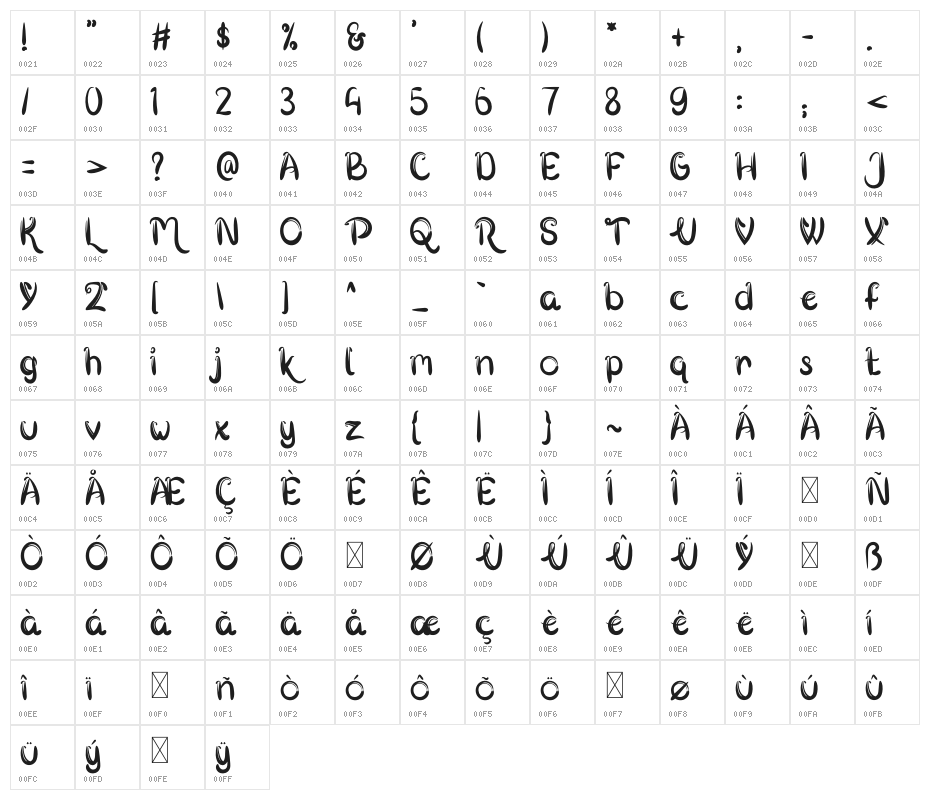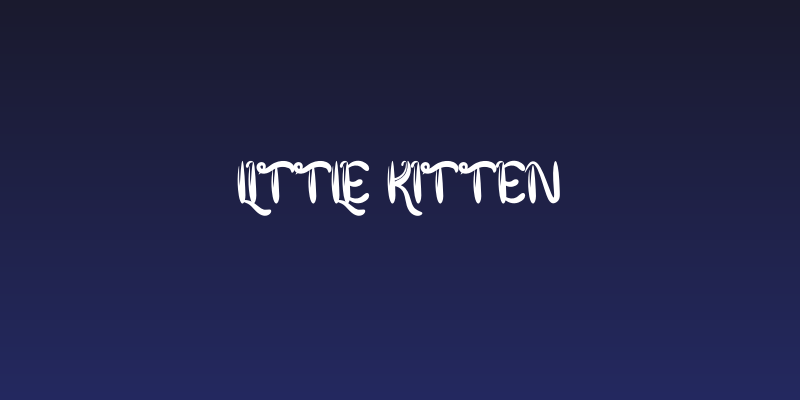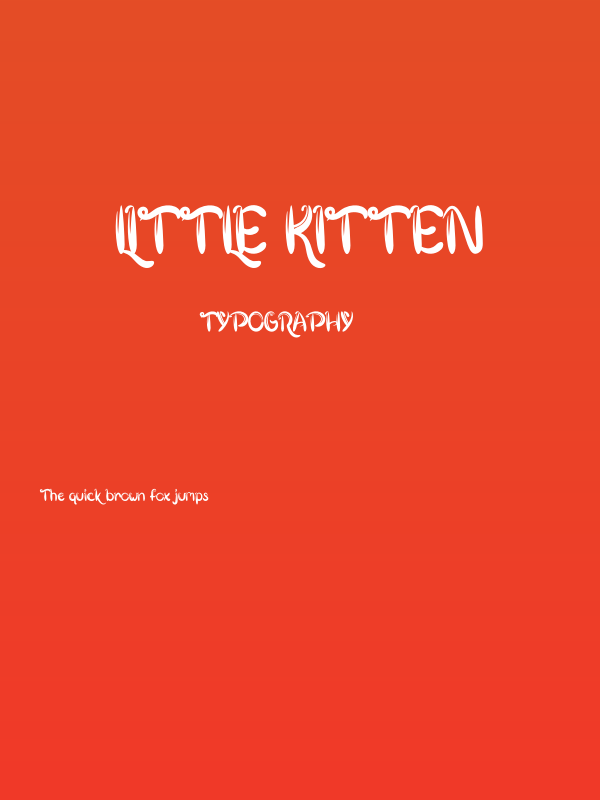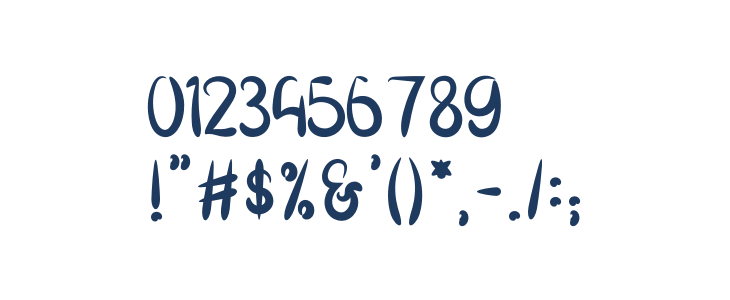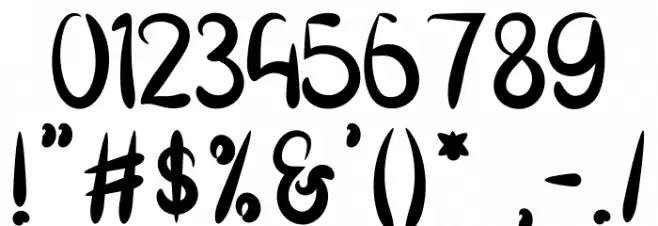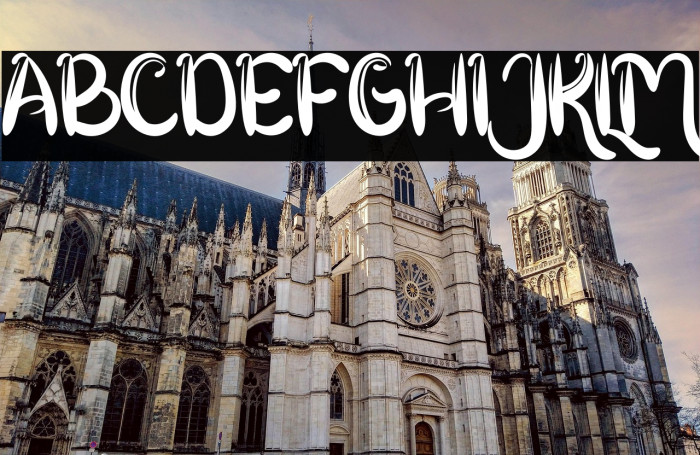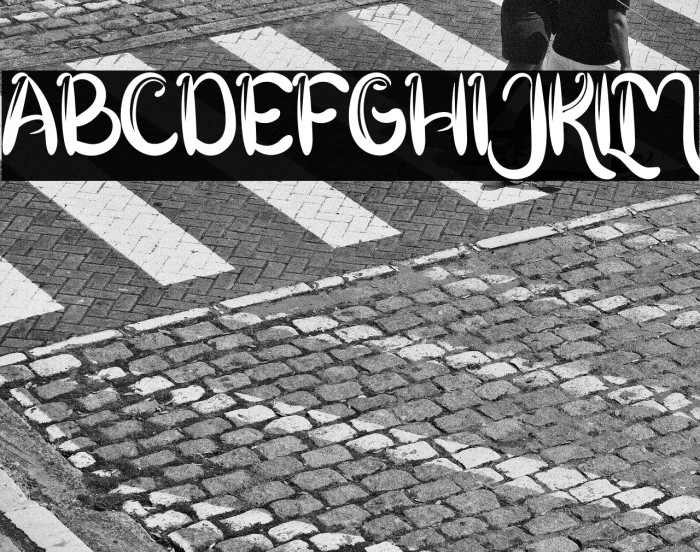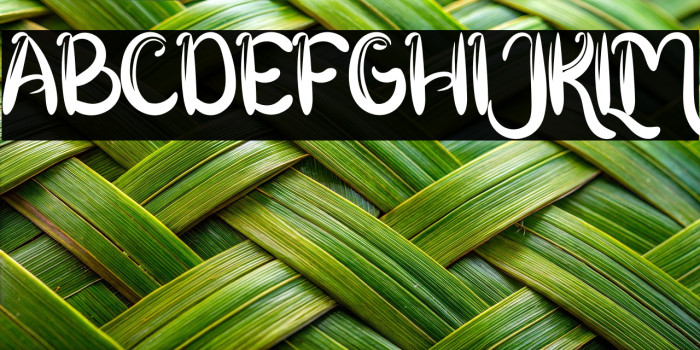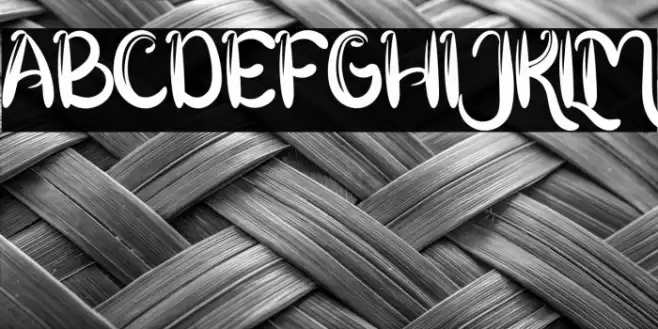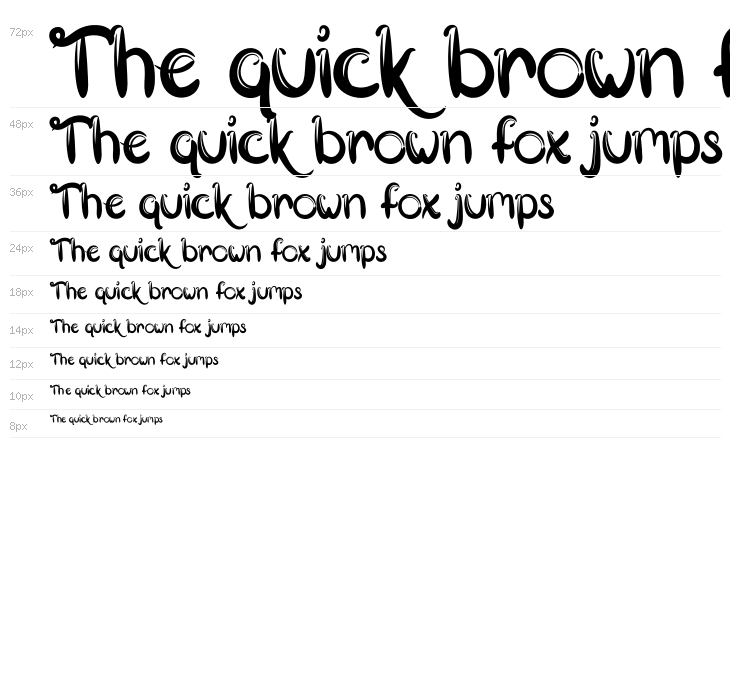
Little Kitten Font
Little Kitten Description
This playful and whimsical font features a unique blend of bold, rounded characters with a touch of flair. Each letter is crafted with a sense of movement, creating a lively and dynamic appearance. The uppercase and lowercase letters maintain a consistent style, with exaggerated curves and playful loops that add a sense of fun and creativity. The numbers and special characters follow the same design principles, ensuring a cohesive look across all elements. This font is perfect for projects that require a touch of personality and charm, making it ideal for children's books, playful branding, or creative invitations.
| Overall Style | Playful, Whimsical, Creative |
| Use Case | Headlines, Logos, Invitations |
| Proposed Projects | Ideal for children's books, playful branding, creative invitations, and fun posters. |